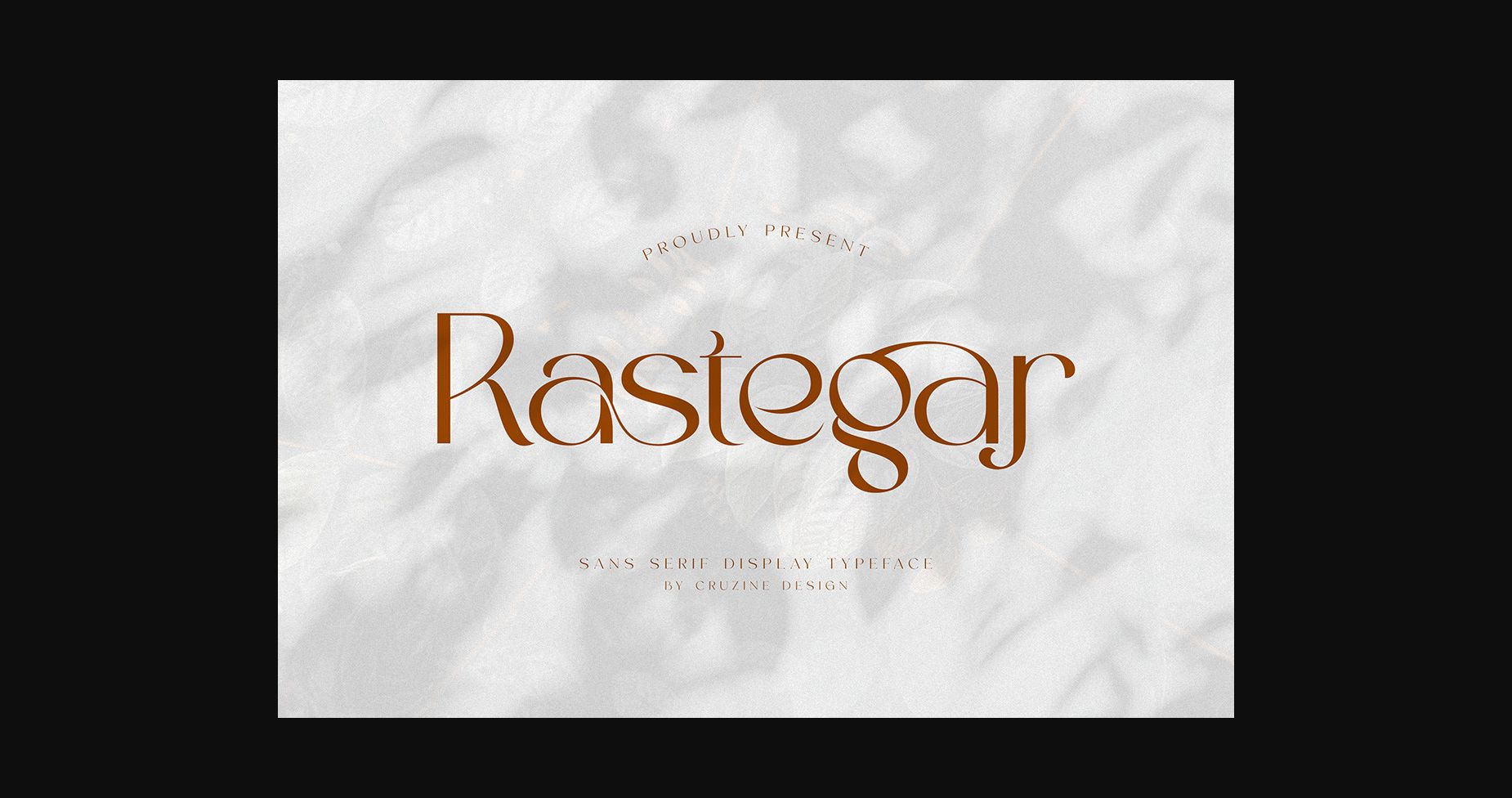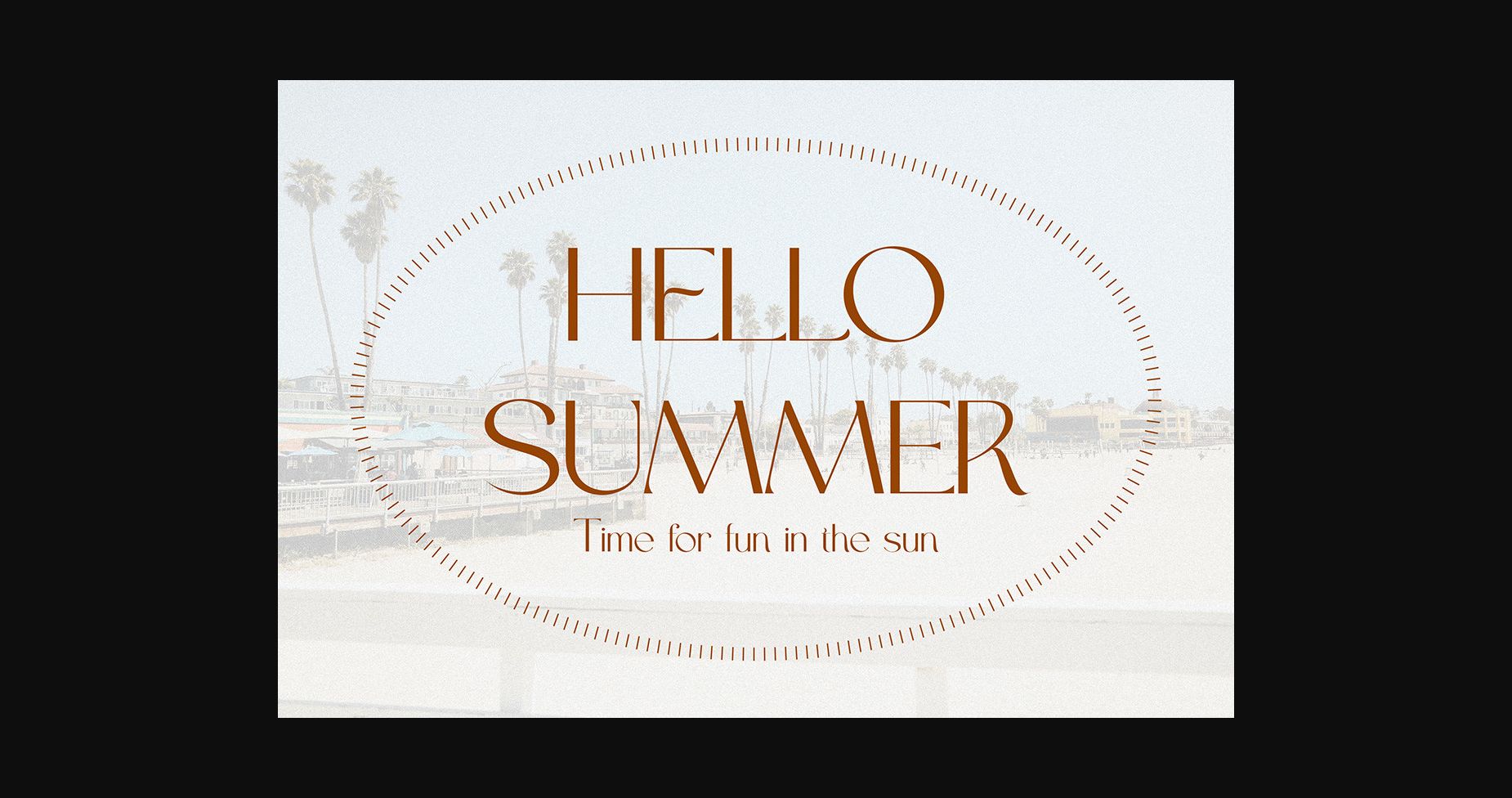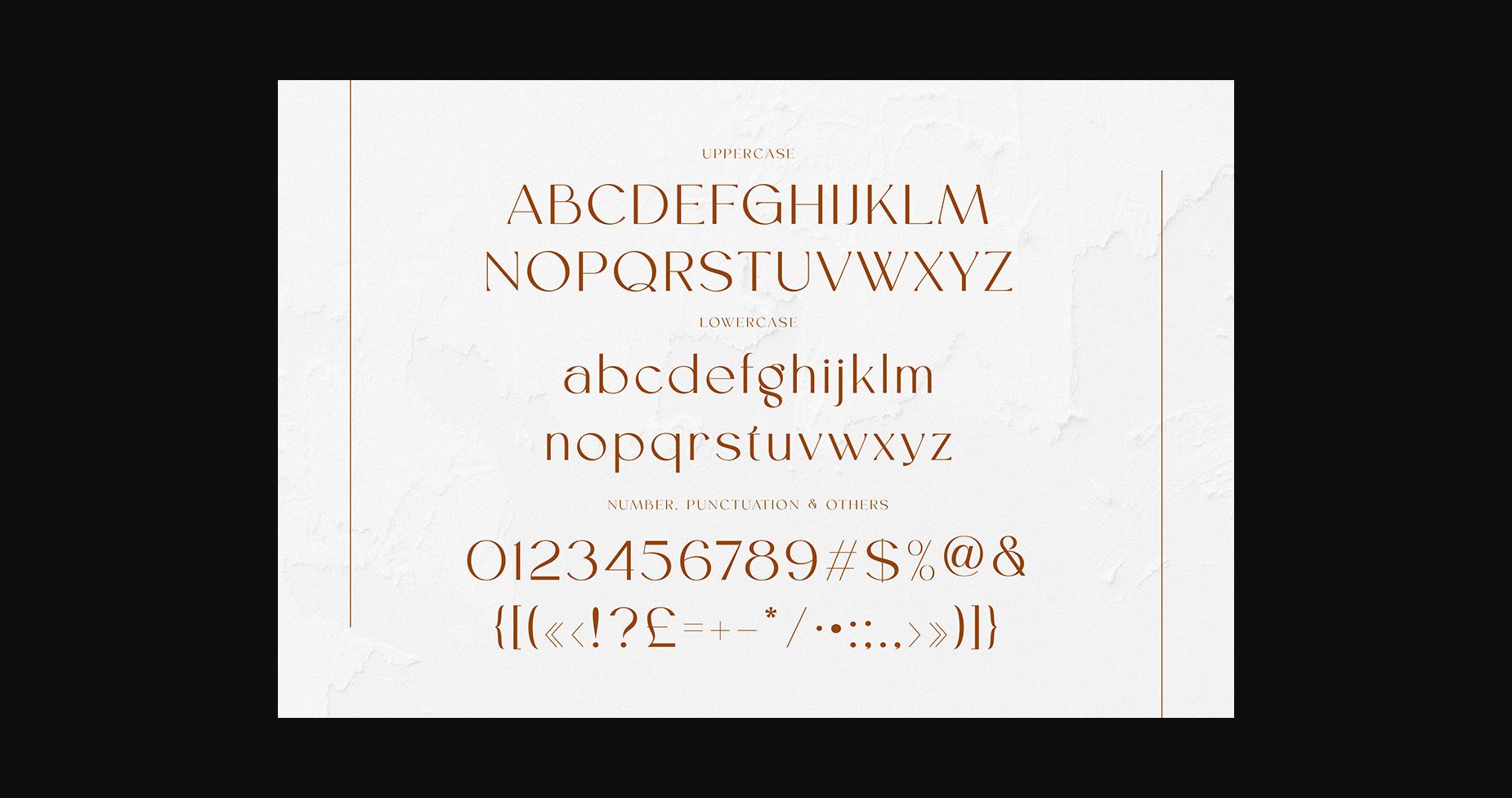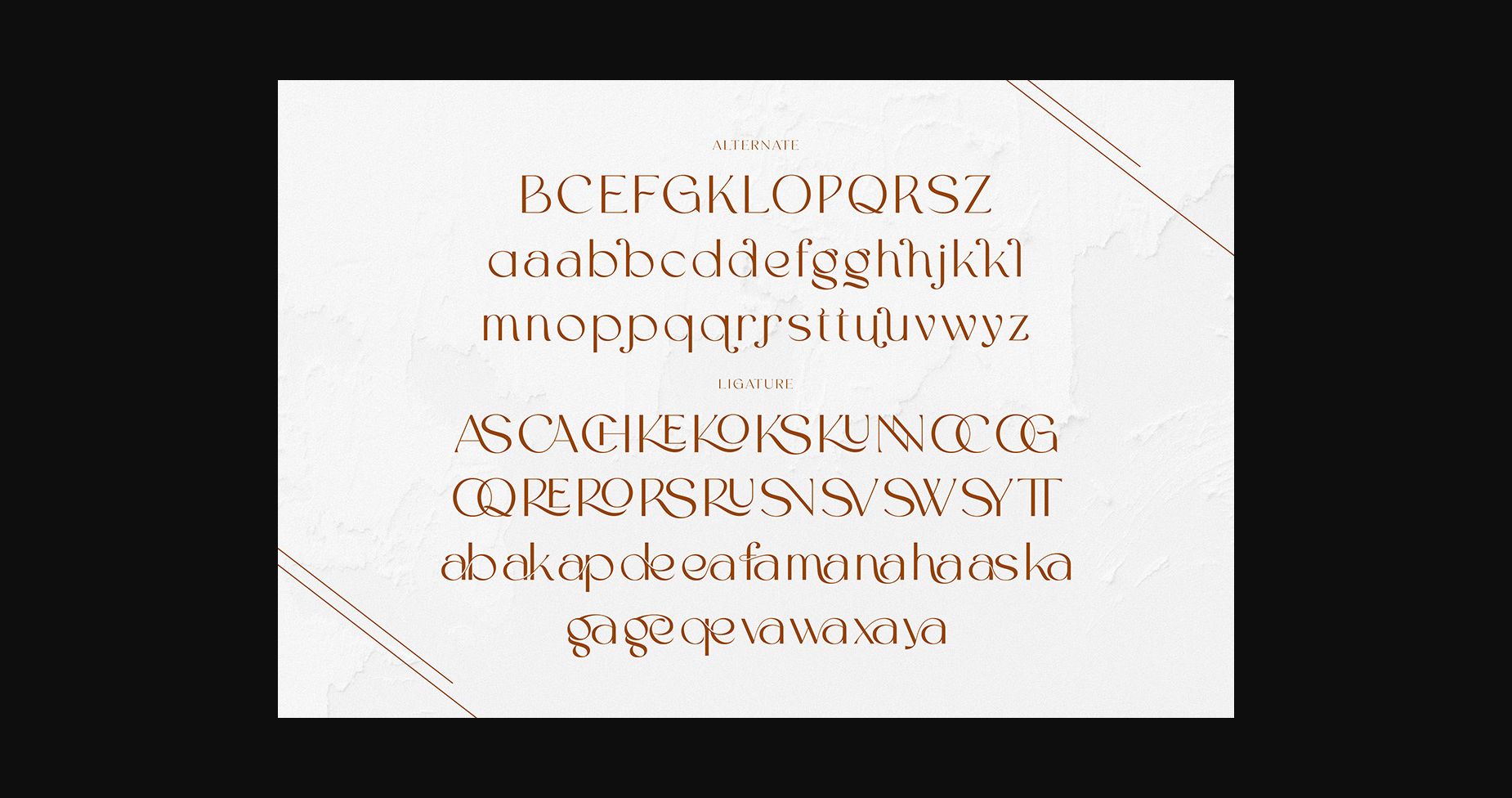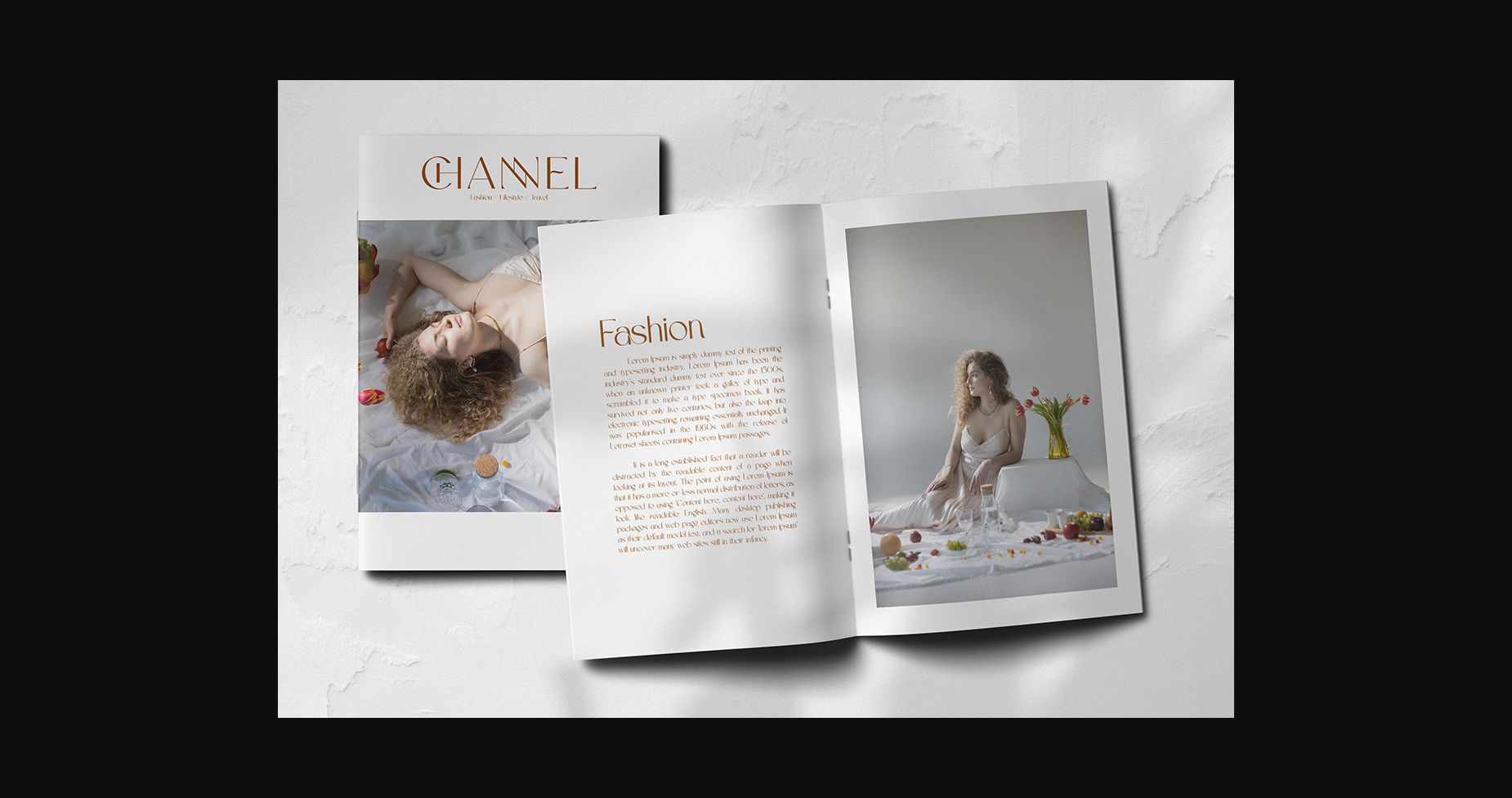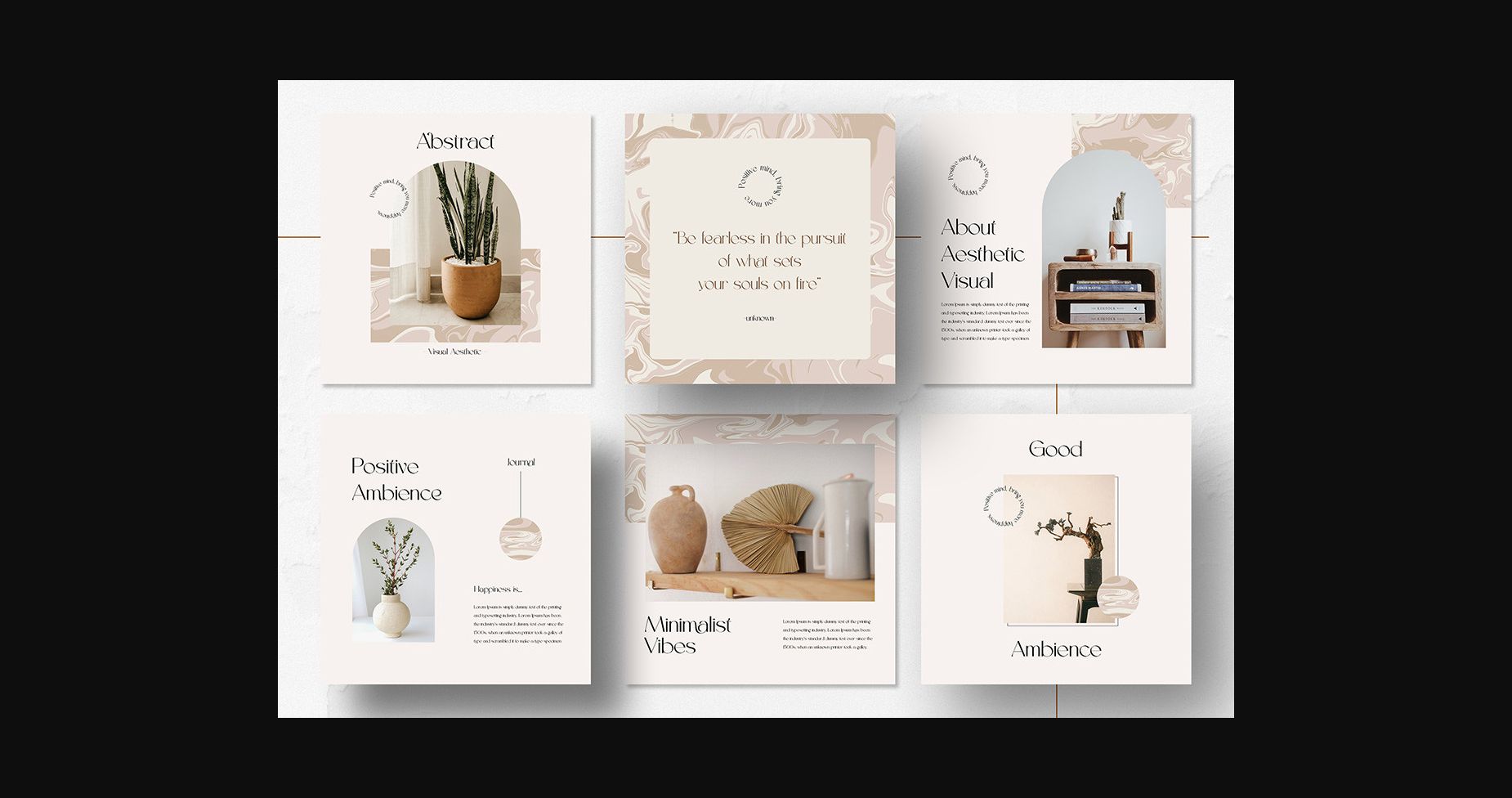
About Rastegar Font
Introducing “Rastegar” the most exclusive sans-serif font. With its clean and minimalistic design, this font exudes a modern and sophisticated feel. Ideal for branding, advertising, and editorial layouts, this font is perfect for those who want to create a contemporary and edgy aesthetic. Upgrade your design game with this must-have font.
Keep in mind that the font is PUA encoded, meaning that you can access all delightful glyphs and swashes effortlessly.